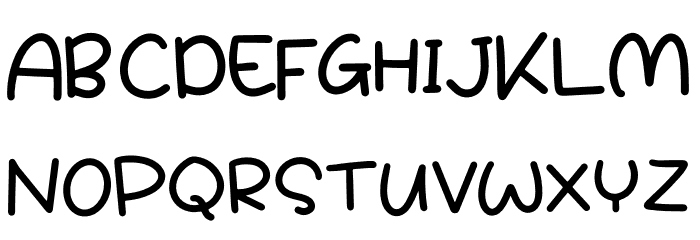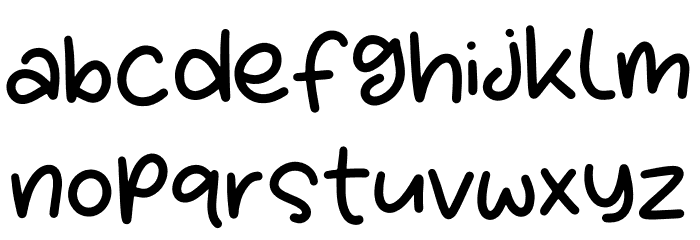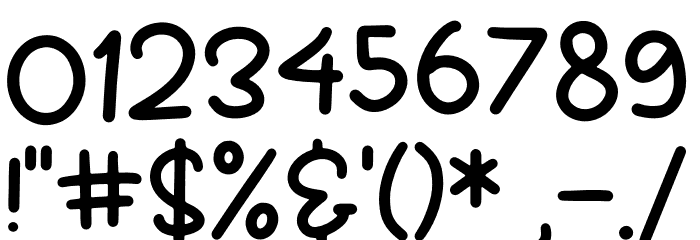
Choper Quirky Font
This font exudes a playful and whimsical character, with its rounded and slightly irregular letterforms that give it a hand-drawn appearance. The uppercase and lowercase letters maintain a consistent style, with smooth curves and a casual, friendly demeanor. The numerals and special characters follow the same quirky aesthetic, making the font versatile for creative projects. Its informal style is perfect for designs that require a touch of fun and personality, such as children's books, playful branding, or casual invitations.
A playful, hand-drawn font with rounded, quirky letterforms.
- Font: Choper Quirky
- Proposed Projects: Ideal for children's books, playful branding, casual invitations, and creative projects requiring a fun touch.
- Category: Handwritten
- Overall Style: Playful
- Use Case: Headlines, Logos, Informal Text